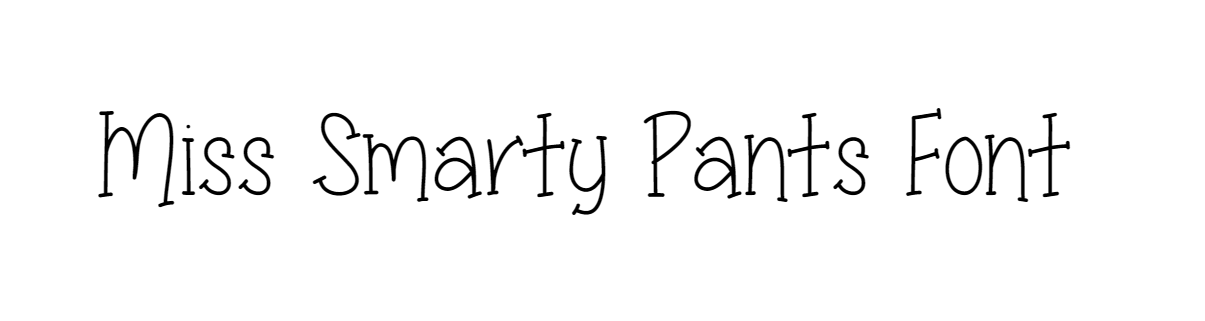
Miss Smarty Pants
Miss Smarty Pants is a cartoon font. Its bouncy, rounded letters feel playful, like lettering from a cartoon or a comic book. You get two styles in one free ZIP, and the preview above lets you test each one before you download.
- Font styles: 2 (Medium and Skinny)
- Glyphs: 203 in the Medium style
What You Can Type With Miss Smarty Pants
Miss Smarty Pants covers the full alphabet in upper and lowercase, plus all ten numbers, so you can set names, dates and prices without switching fonts. Everyday marks like &, !, ? and @ are there too. Thanks to its accented letters, it also works for Spanish, French, German, Portuguese and Italian, not just English.
Where Miss Smarty Pants Works Best
Miss Smarty Pants is a natural fit for kids' books, birthday invites and fun YouTube thumbnails. Cartoon fonts are great for short, fun lines. If you place it over a busy photo, add a thick outline or a drop shadow so it stays readable. Because the family has more than one style, you can mix them in a single design for headings, subheadings and highlights.
Does Miss Smarty Pants support accented letters?
Yes. Miss Smarty Pants includes the accented letters needed for Spanish, French, German, Portuguese and Italian, so it works for more than just English.